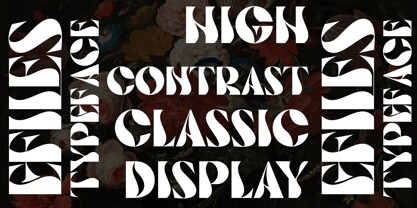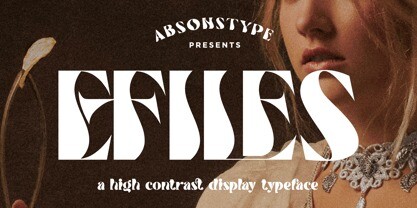
Efiles Font Family
EFILES Font is the playful display typeface with high contrast combine uppercase and lowercase looks and feel nice balanced. Provide the ligatures font in variant style make the design letter looks nice. Honestly it works perfectly for headlines, logos, posters, packaging, T-shirts and much more.